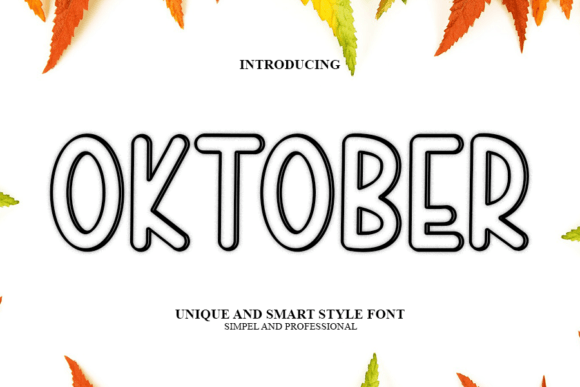
Embark on a typographic voyage to the past with Oktober Font, a captivating sans-serif font that breathes life into vintage designs. As if plucked from the pages of yesteryear, this font carries the allure of classic aesthetics, resonating with the timeless appeal of bygone eras.
Crafted by PAYJHOshop, a visionary font foundry, Oktober Font is a testament to the enduring charm of vintage typography. Its meticulously designed characters exude a sense of nostalgia, inviting you to reminisce about simpler times when life was slower and details were savored.
Whether you're a seasoned graphic designer yearning for a touch of retro elegance or a budding entrepreneur seeking to infuse your brand with a vintage flair, Oktober Font is your quintessential companion. Its versatility knows no bounds, seamlessly adapting to an array of creative projects, from captivating social media posts to eye-catching logos that evoke a sense of heritage.
Unleash your creativity and let Oktober Font transport you to an era of timeless style. Let your designs speak volumes with a font that's both alluring and authentic, a font that captivates audiences with its innate charm.
Join the ranks of creative visionaries who have embraced Oktober Font's allure, transforming ordinary designs into extraordinary works of art. Let the vintage spirit flow through your veins as you effortlessly create designs that resonate with a sense of nostalgia and authenticity.
With Oktober Font at your fingertips, you'll discover a world of creative possibilities, where the past and present intertwine to create designs that truly stand the test of time. So, step into the realm of vintage typography and let Oktober Font ignite your imagination.